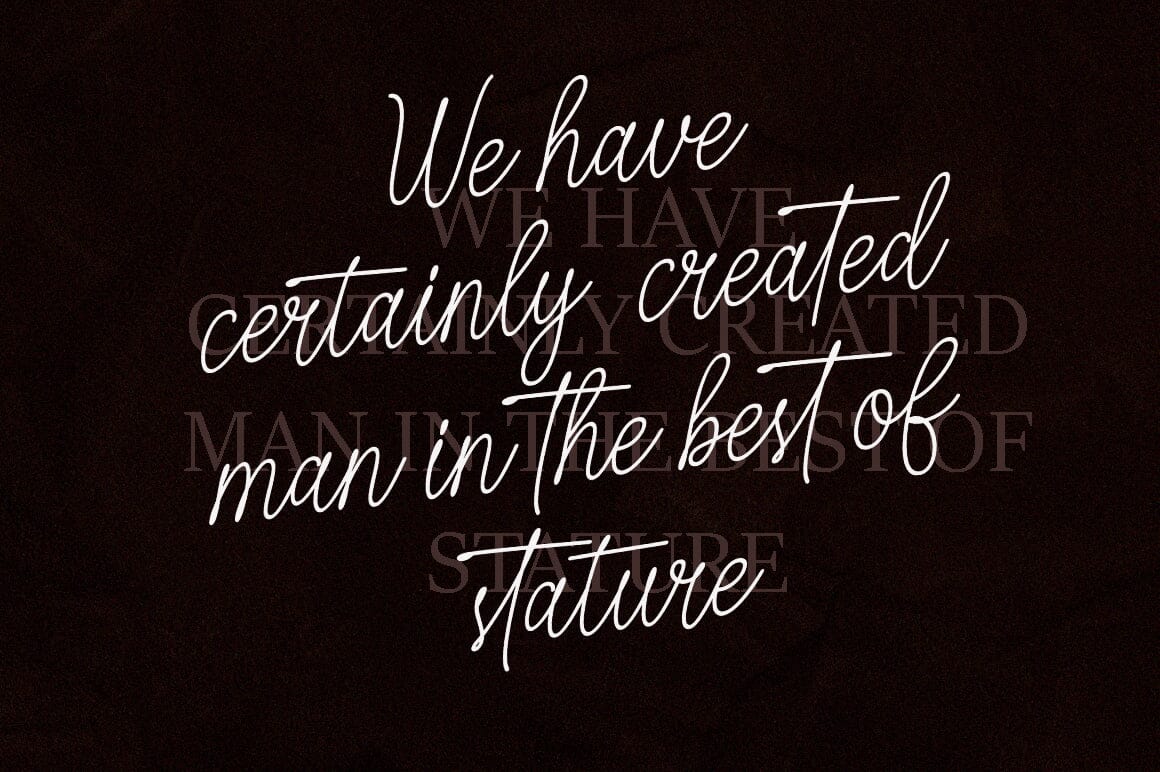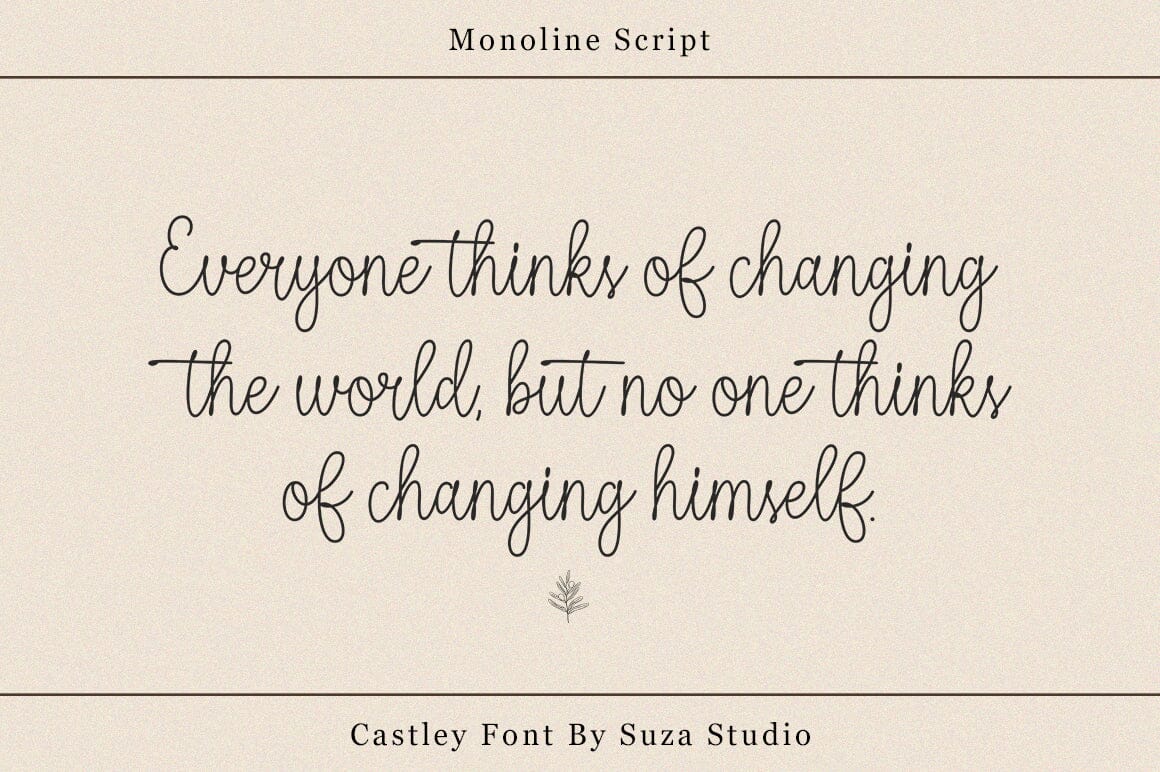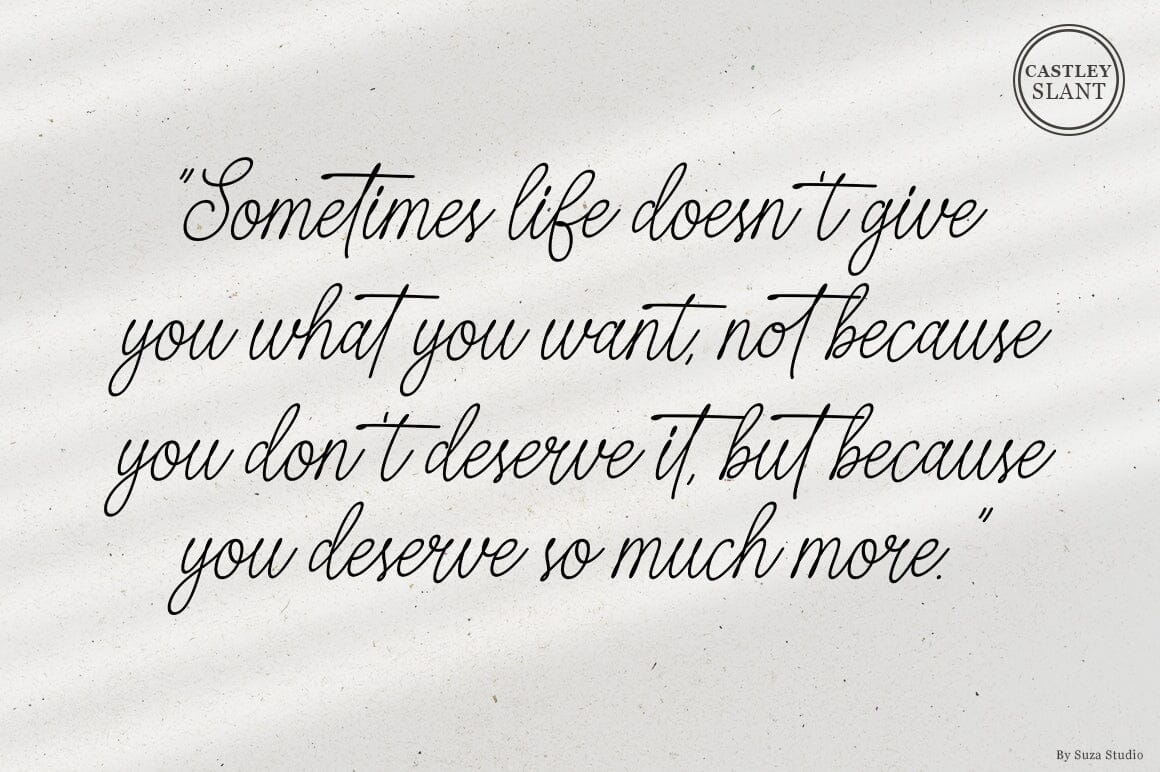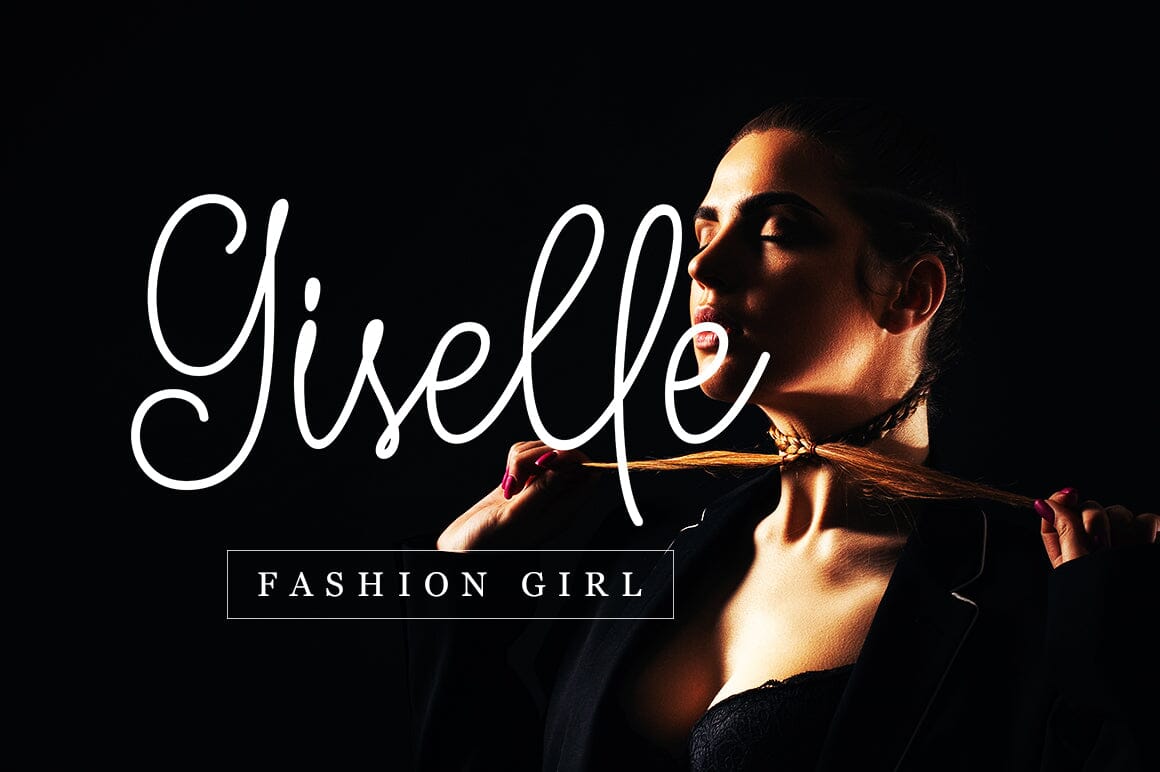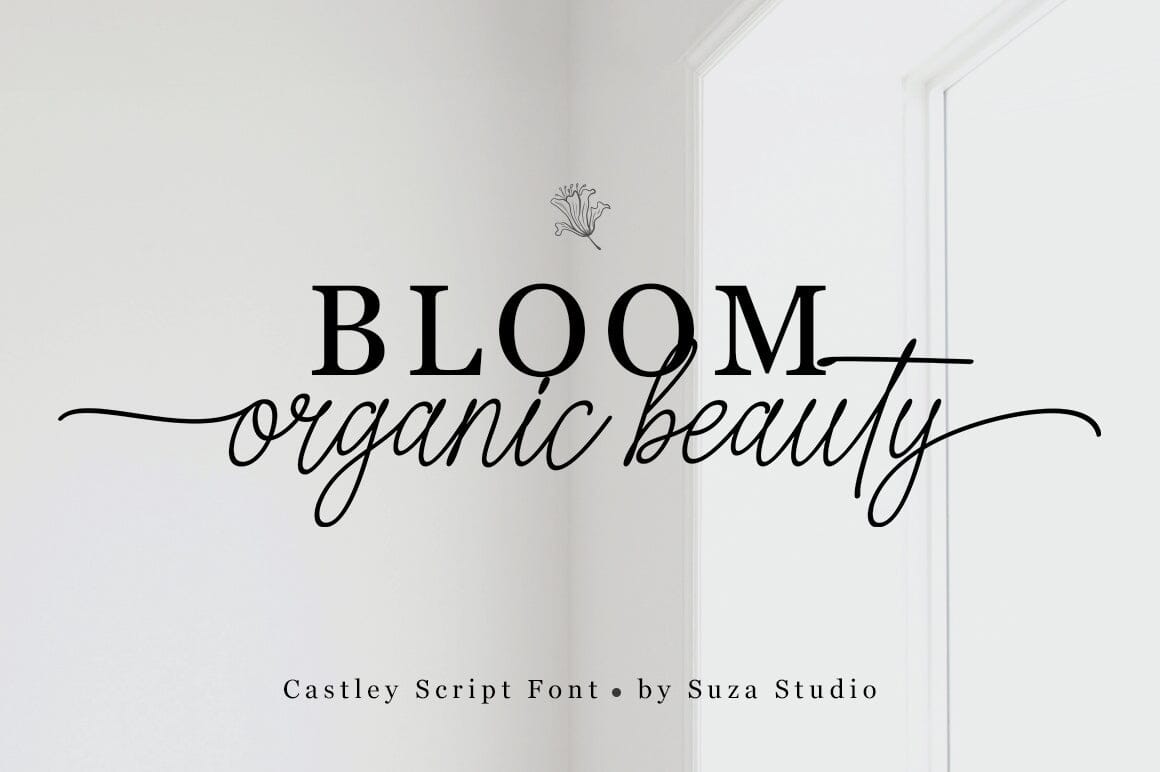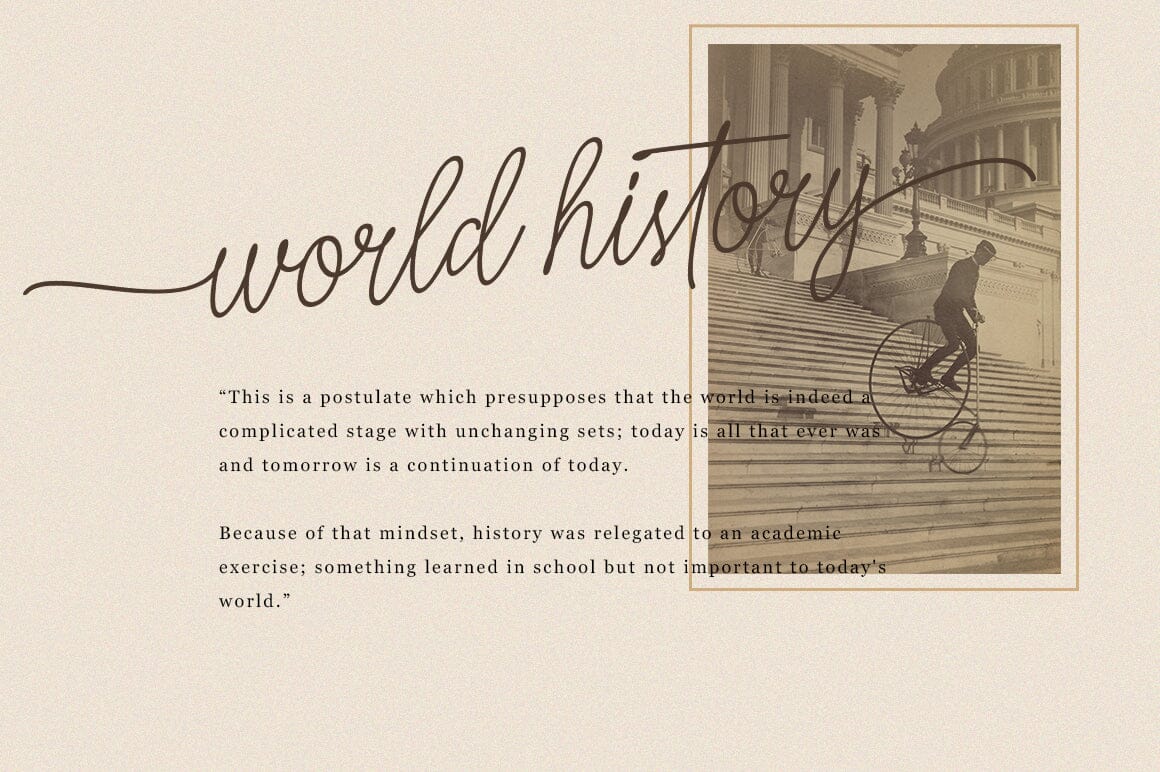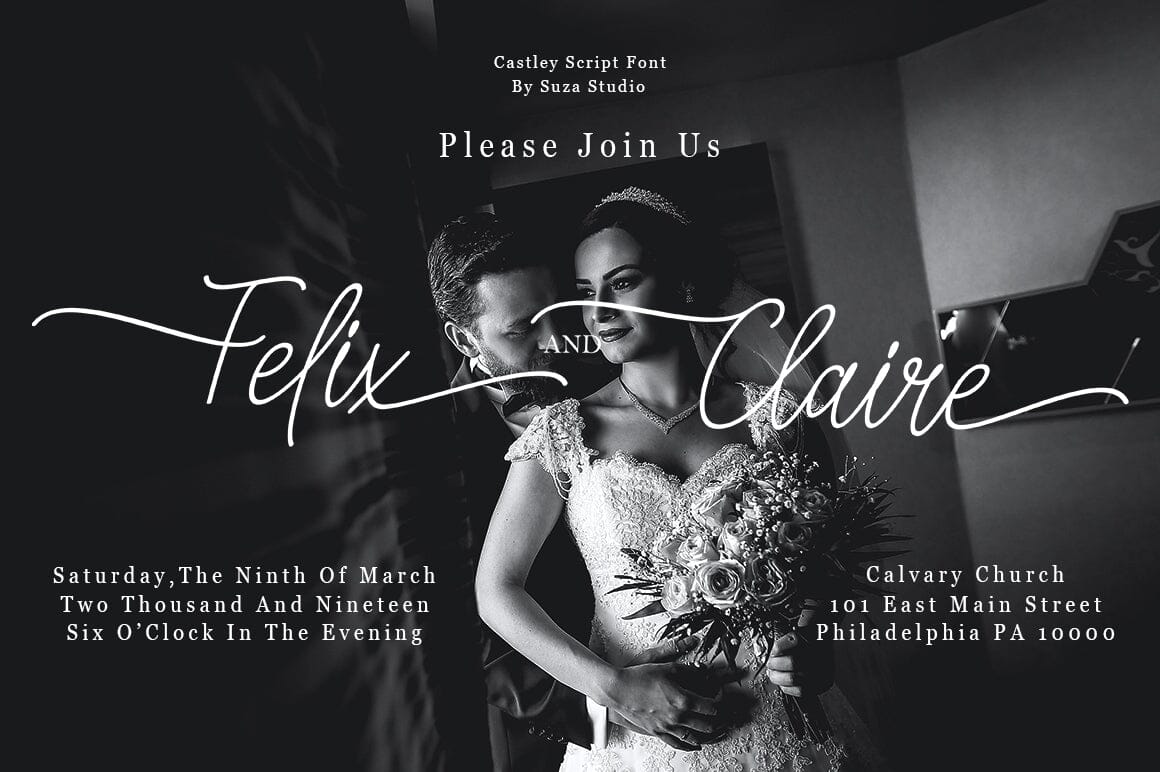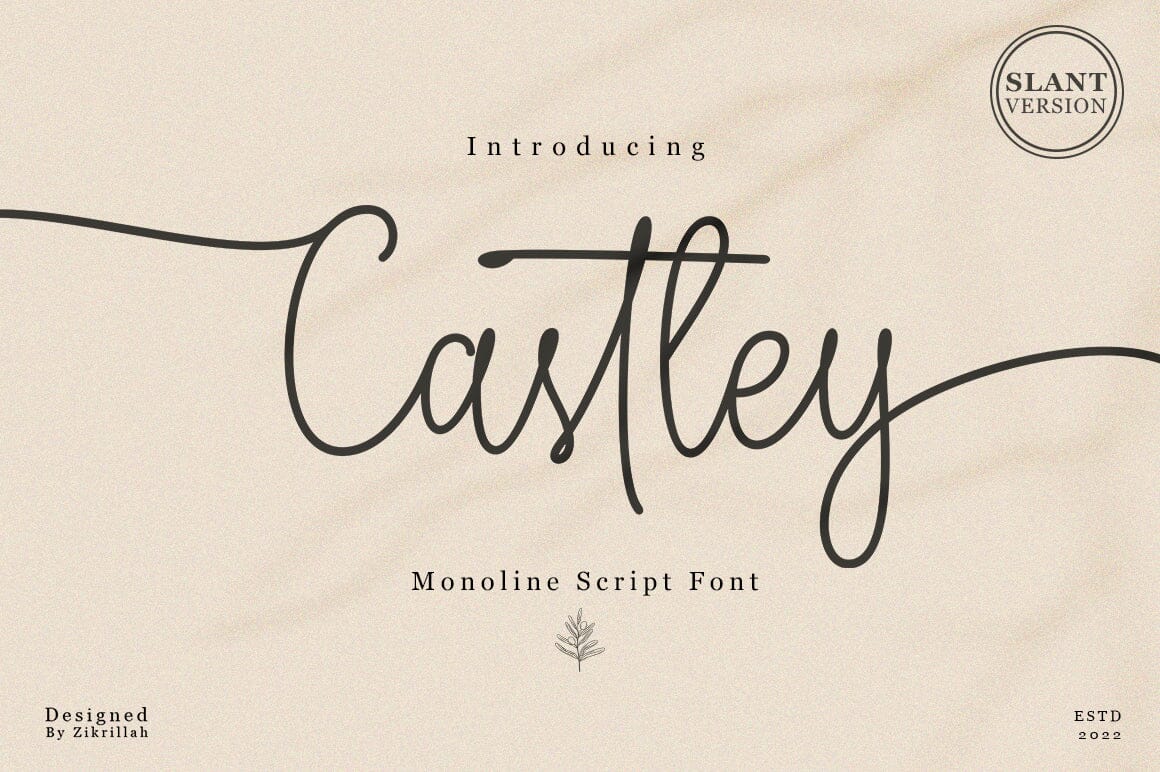
Castley
About Castley
Introducing the monoline calligraphy script font, Castley a beautiful and elegant script font designed for signature logos, wedding invitations, custom branding, websites, social media and more! Right on Valentine’s Day, it’s perfect for a couple’s name or anything that needs a soft and romantic touch. Italic versions are included for a more organic analog handwriting feel. Files include: Castley Regular (OTF, TTF) Castley Italic (OTF, TTF) To enable the OpenType Stylistic alternative, you need a program that supports OpenType features such as Adobe Illustrator CS, Adobe Indesign & CorelDraw X6-X7, Microsoft Word 2010 or a later version. There are additional ways to access the swashes, using the Character Map (Windows), Nexus Fonts (Windows), Font Books (Mac) or a software program such as PopChar (for Windows and Mac).